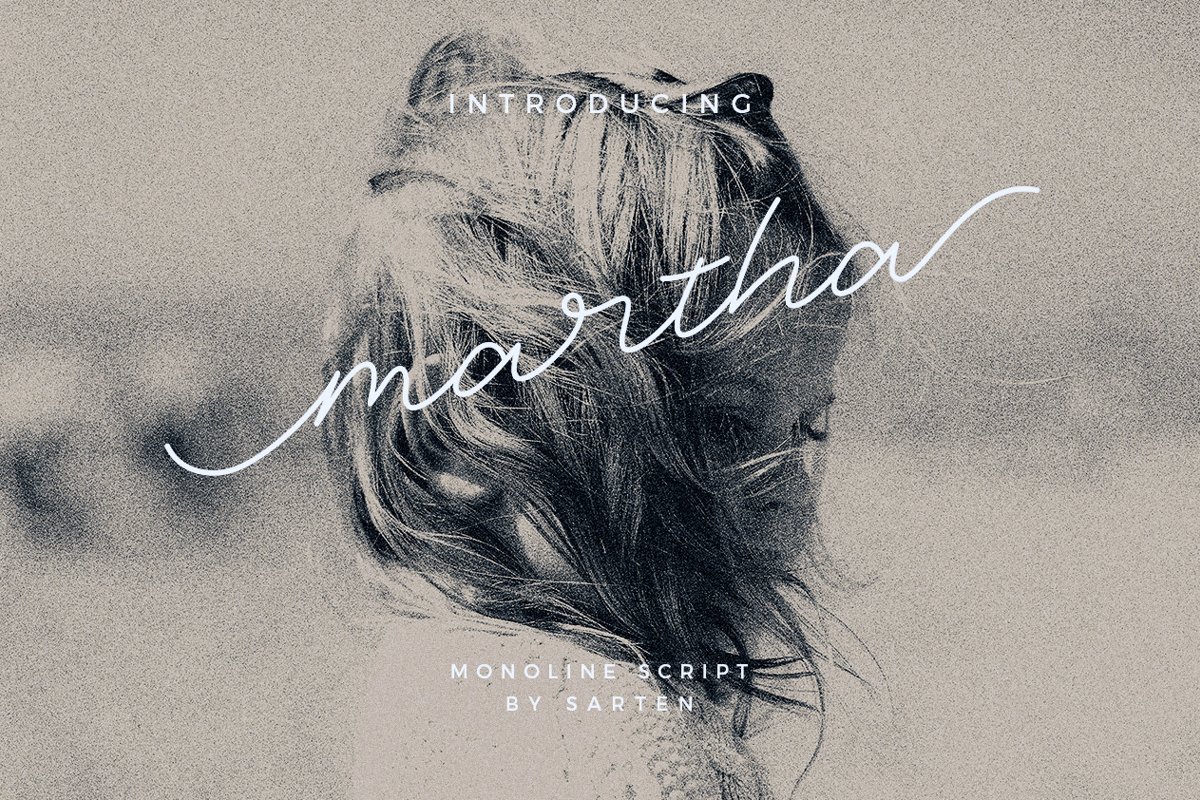
Martha
Introducing Martha is a monoline script font. It's allow you to create stunning and easy hand-lettering in an instant. Ideal for logo, quotes, wedding, product label/packaging, fashion, letter, invitation, poster, merchandise, greeting cards, etc
• Numerals
• Punctuation
• Multilanguage
• Lowercase Alternates